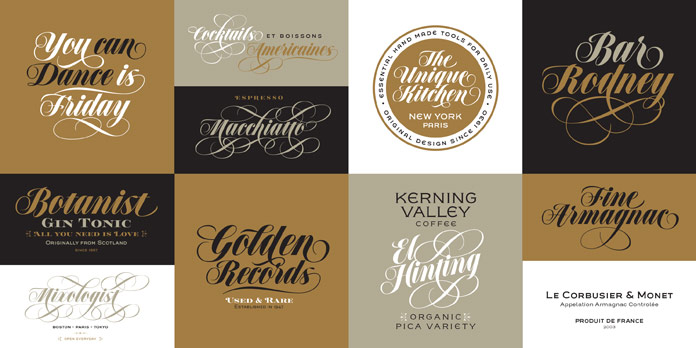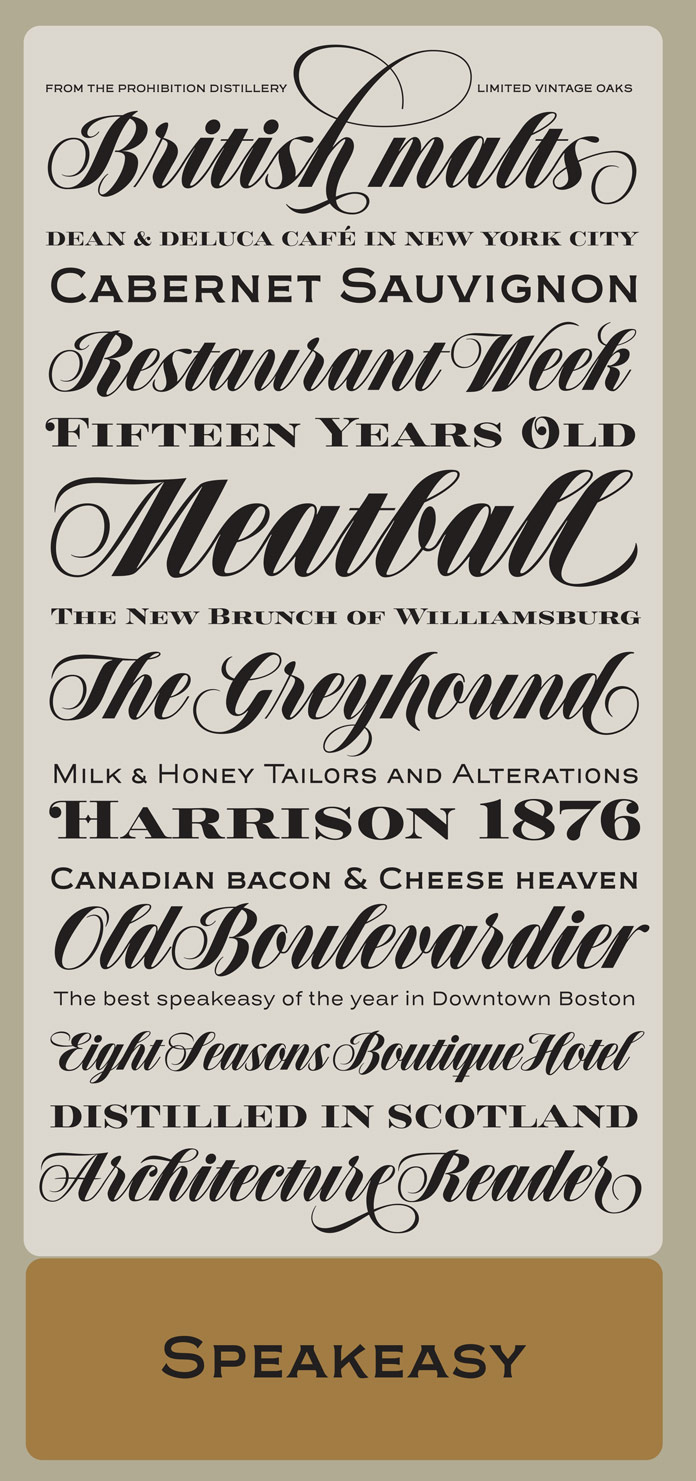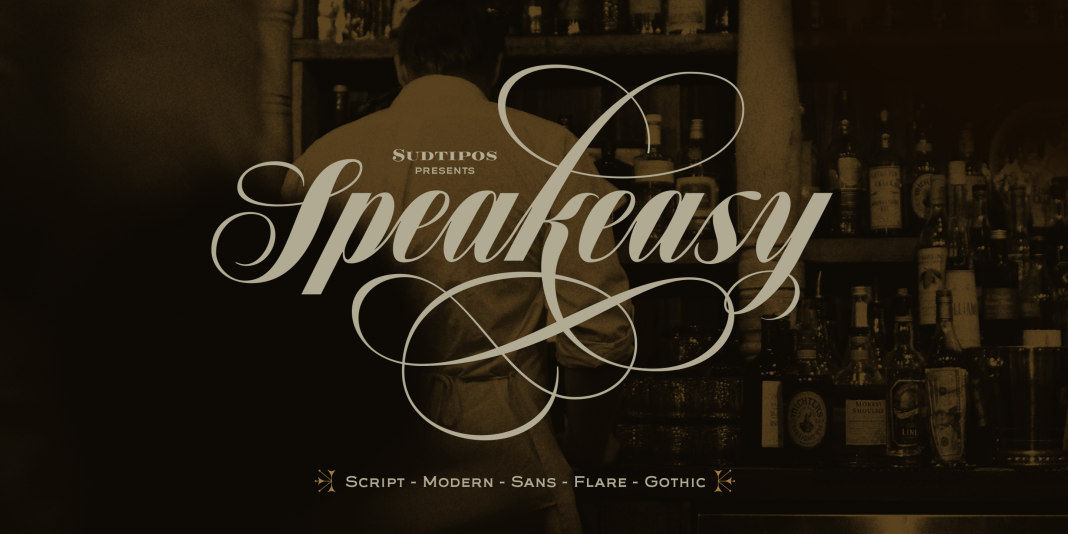
Speakeasy, a great font combo designed by Alejandro Paul of foundry Sudtipos.
Here comes Speakeasy, a stylish font combo consisting of 5 typefaces that can be combined in different ways quite easily. Designed by Alejandro Paul of foundry Sudtipos, the collection is intended to be used as a toolset for designing menus and liquor labels, coffee packaging, restaurant signage, etc. This set contains a script, a minor (almost flat) wedge serif, a flare serif, a sans serif, and a bold Didone. You can find further information about the entire family on MyFonts, just follow the link below.